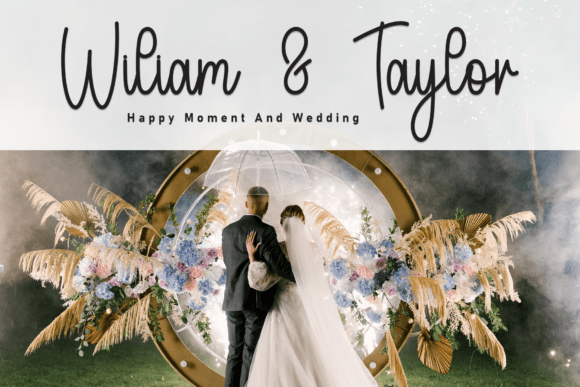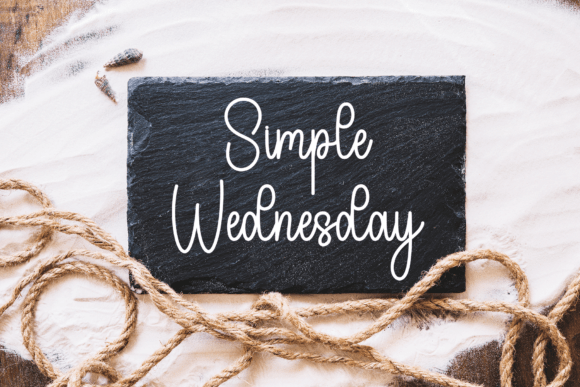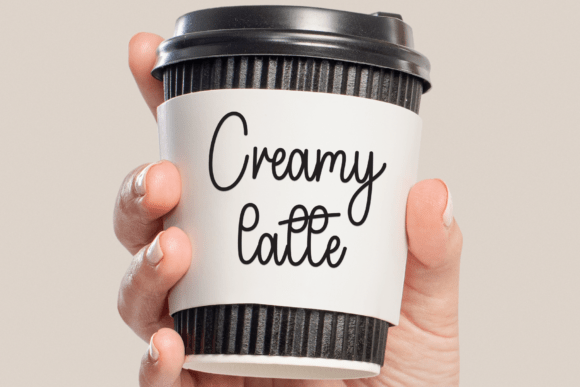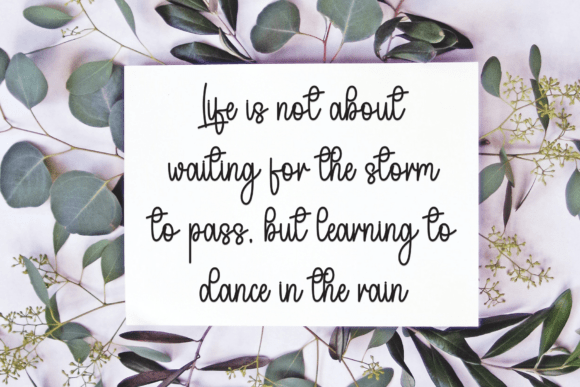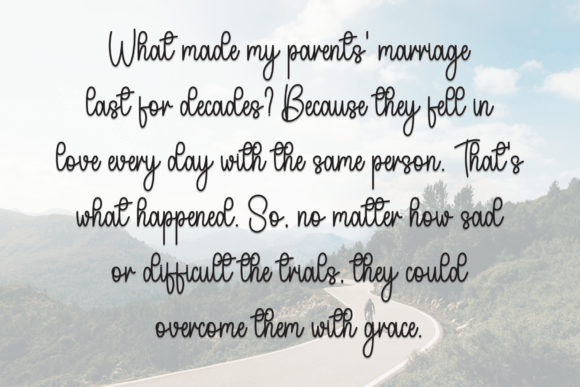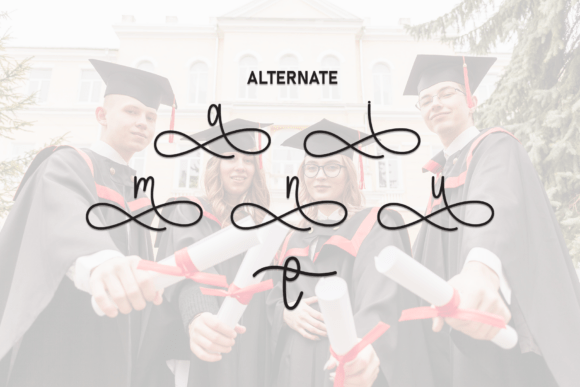
Celebrating Life’s Biggest Milestones with the Graduation Font
I’ll never forget the time I was tasked with designing a diploma for a friend’s graduation ceremony. I spent hours scouring the internet for the perfect font, but nothing seemed quite right. That was until I stumbled upon the Graduation font – a sophisticated and fluid monoline script that exuded accomplishment and grace. In this article, I’ll share my experience with this beautiful font, its features, and how to make the most of it in your designs.
A Closer Look at the Graduation Font
The Graduation typeface features sweeping, interlocking flourishes and a consistent weight that mimics high-end wirework or expert calligraphy. Its elegant loops and rhythmic baseline give it a formal yet celebratory feel that is perfect for honoring significant achievements.
Here are some of the key features that make the Graduation font stand out:
- ✨ Elegant and sophisticated monoline script
- ✅ Perfect for diploma headings, commencement invitations, and commemorative yearbooks
- 💫 Features sweeping, interlocking flourishes and a consistent weight
- 📚 Includes PUA encoding for easy access to alternates and flourishes
I’ve had the pleasure of working with the Graduation font on several projects, and here are some things that I love about it:
- ✨ The font’s elegant and sophisticated design makes it perfect for formal events and milestones.
- ✅ The consistent weight and interlocking flourishes give it a high-end feel.
- 💫 The font is versatile and can be used for a variety of projects, from diploma headings to commemorative yearbooks.
While the Graduation font is a beautiful and versatile font, there are a few small quirks and limitations to be aware of:
- ⚠️ The font’s intricate design can make it difficult to read at small sizes.
- 🤔 Some users may find the font’s flourishes and alternates overwhelming, but these can be easily accessed and customized with PUA encoding.
The Graduation font was inspired by the beauty and elegance of traditional calligraphy. Its designer wanted to create a font that would evoke the feeling of accomplishment and pride that comes with graduating from school or achieving a major milestone.
Q: What is the Graduation font?
A: The Graduation font is a sophisticated and fluid monoline script that exudes accomplishment and grace.
Q: Is the Graduation font easy to read?
A: The Graduation font is a decorative font that is best used for display purposes. While it can be read at larger sizes, it may be difficult to read at smaller sizes.